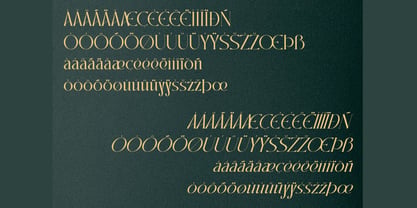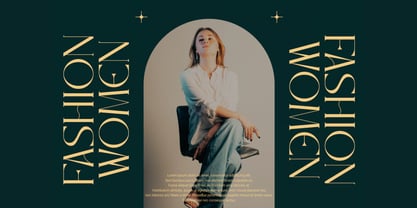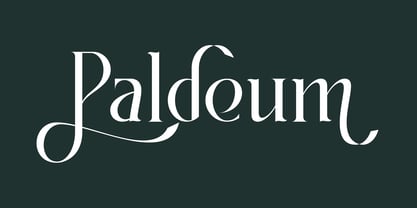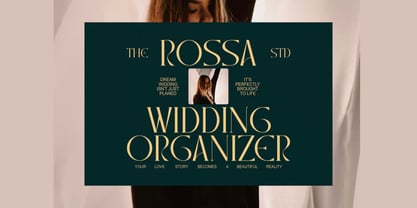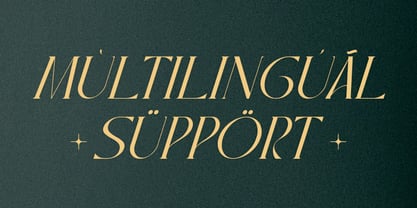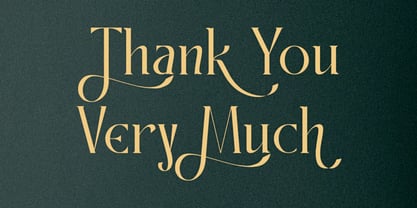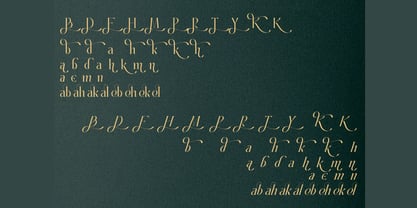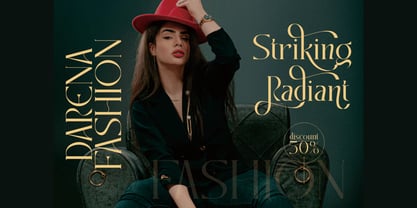
Paldeum
The Paldeum Font Family was designed by Hasnat Khan and published by Hasnat Studio. Paldeum contains 1 styles. More about this family
Paldeum is a bold and modern condensed typeface designed to deliver maximum visual impact with minimal space. Featuring strong geometric letterforms, distinctive cut details, and a commanding presence, Paldeum is crafted for designers who want their typography to be bold, memorable, and impossible to ignore.
Built with a powerful condensed structure, Paldeum combines strength, versatility, and modern style, making it ideal for projects that require attention-grabbing headlines, professional branding, and high-impact visual communication. Its bold, blocky characters project confidence and authority, while the included italic version adds flexibility and creative expression to your designs.
Whether you're creating logos, posters, advertising campaigns, fashion branding, sports graphics, packaging, editorial layouts, website headers, or social media content, Paldeum provides the perfect balance of modern aesthetics and functional performance.
✿ Key Features:
• Bold Condensed Typeface: Powerful letterforms designed for maximum visibility and impact.
• Unique Cut Details: Modern design elements that add personality and distinction.
• Regular & Italic Styles: Flexible font family for dynamic and expressive typography.
• Uppercase & Lowercase Letters: Complete character set for versatile creative projects.
• Numerals & Punctuation: Essential characters for professional typography.
• Stylish Ligatures: Seamless letter combinations that enhance visual flow.
• High-Impact Display Design: Perfect for bold headlines and branding applications.
✿ Perfect For:
• Logo & Branding Design: Build strong and memorable brand identities.
• Advertising & Marketing Campaigns: Capture attention with bold visual messaging.
• Posters & Headlines: Create striking titles and promotional graphics.
• Fashion & Streetwear Branding: Ideal for modern apparel and lifestyle brands.
• Sports & Esports Graphics: Deliver energy, confidence, and competitive appeal.
• Editorial & Magazine Layouts: Perfect for impactful headings and feature content.
• Web Design & Social Media: Enhance digital projects with contemporary typography.
Make a powerful impression with Paldeum—a bold modern condensed typeface featuring strong letterforms, stylish ligatures, and versatile regular and italic styles. Perfect for logos, posters, branding, advertising, fashion, sports graphics, and impactful design projects that demand attention.